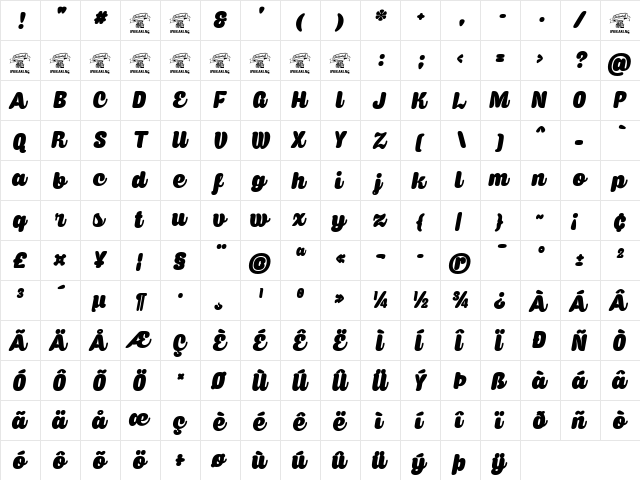
Caprica Script Personal Use Regular
Design Context for Caprica Script Personal Use Typeface
Caprica Script Personal Use flows with the natural rhythm of handwritten lettering, making it ideal for designs that call for warmth and personal expression.
Font Pairing: Combine Caprica Script Personal Use with a simple geometric sans for maximum contrast — the tension between flowing curves and clean structure is a classic typographic pairing.
Pro Tip: Use Caprica Script Personal Use for short runs of text — names, titles, or taglines. Extended body copy in script faces tires the eye quickly.